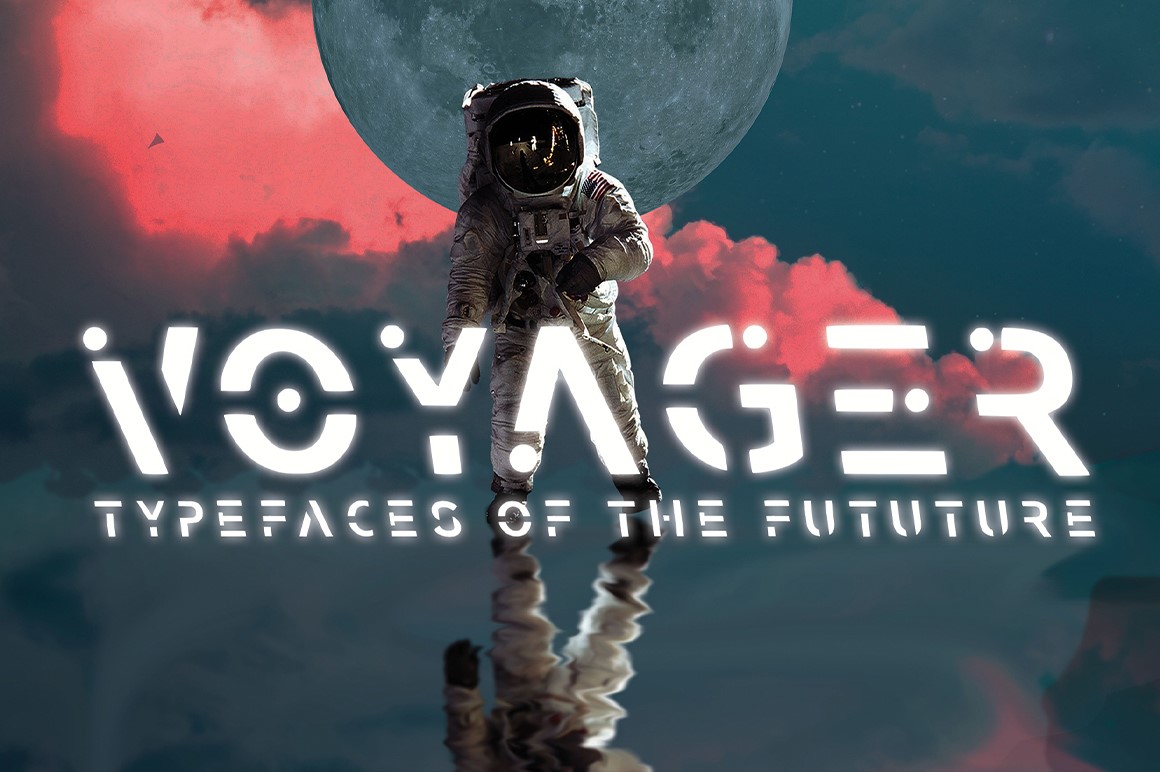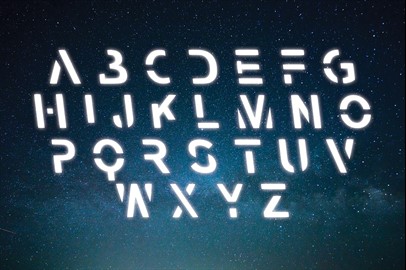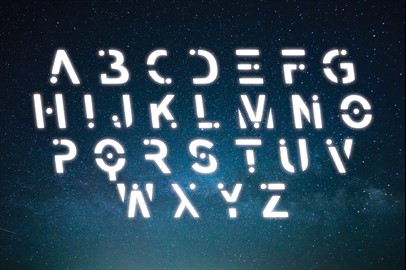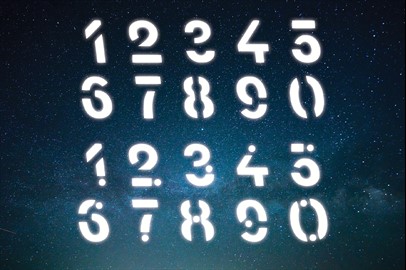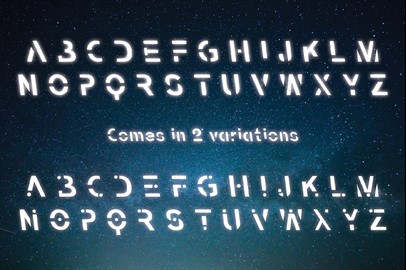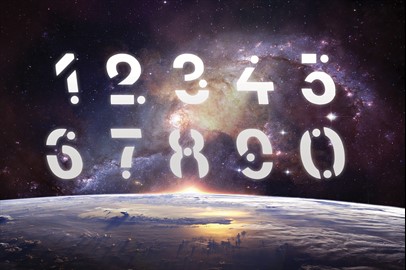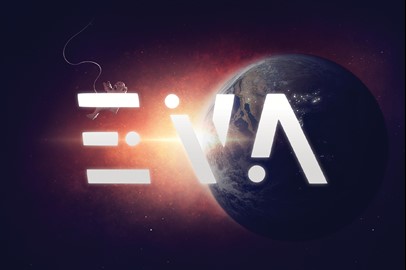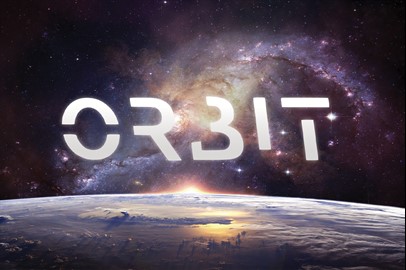
VOYAGER - Typefaces of the Future
A futuristic font set. Voyager is an outstanding design that has been passionately crafted with a futuristic vibe. Contains 2 unique variations; upper and lowercase letters as well as numbers.